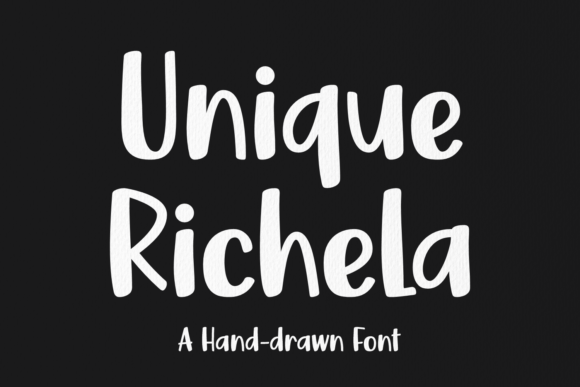
Meet Unique Richela, a captivating script font that breathes life into your digital creations. Its graceful curves and playful energy make it the perfect companion for designers seeking to create heartfelt and inviting designs.
With Unique Richela, your designs will radiate warmth and charm. Its hand-drawn strokes evoke a sense of authenticity and human connection, inviting your audience to engage with your message on a deeper level. From heartwarming home décor projects to heartfelt wedding invitations, Unique Richela adds a touch of magic to every project it graces.
This versatile font is a treasure trove of creative possibilities. Its friendly and approachable personality makes it ideal for crafting logos, branding, social media graphics, and packaging designs. Its playful spirit shines through in children's books, greeting cards, and whimsical posters, capturing the imagination of young and old alike.